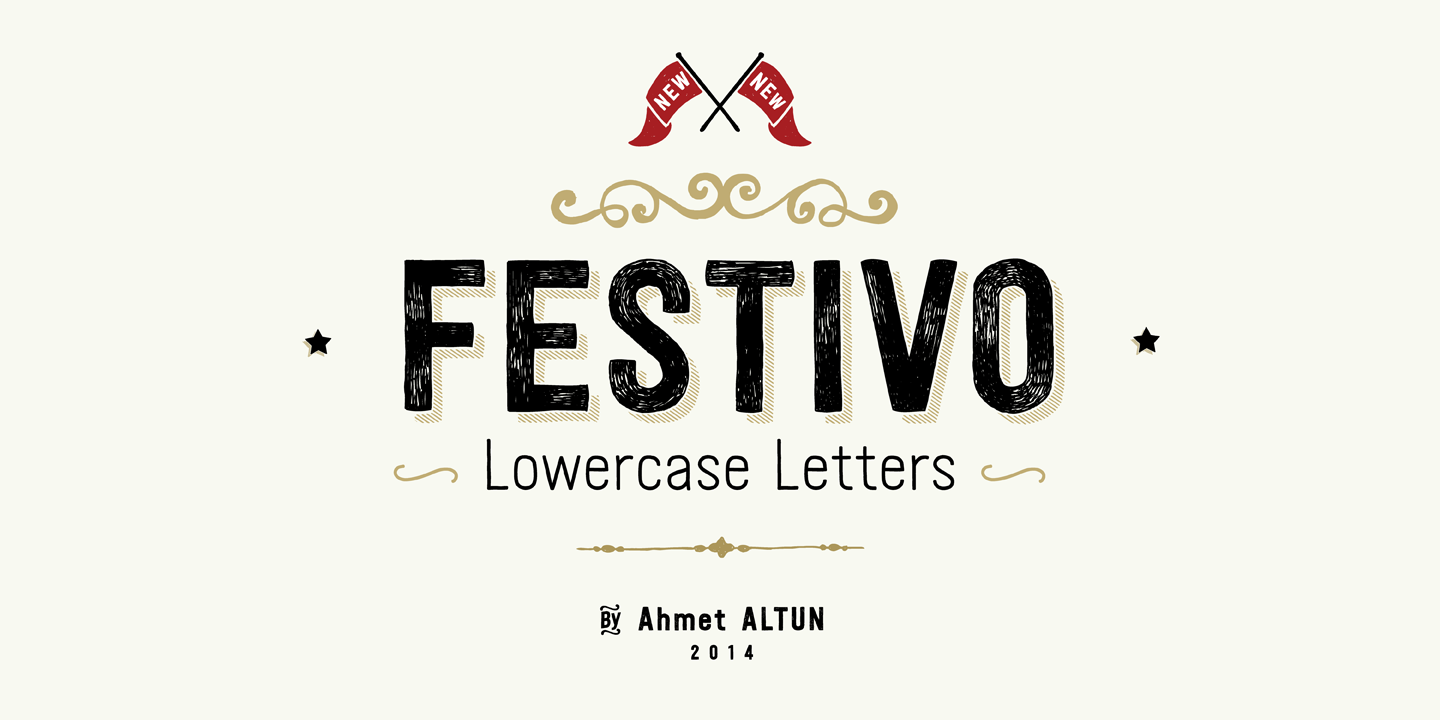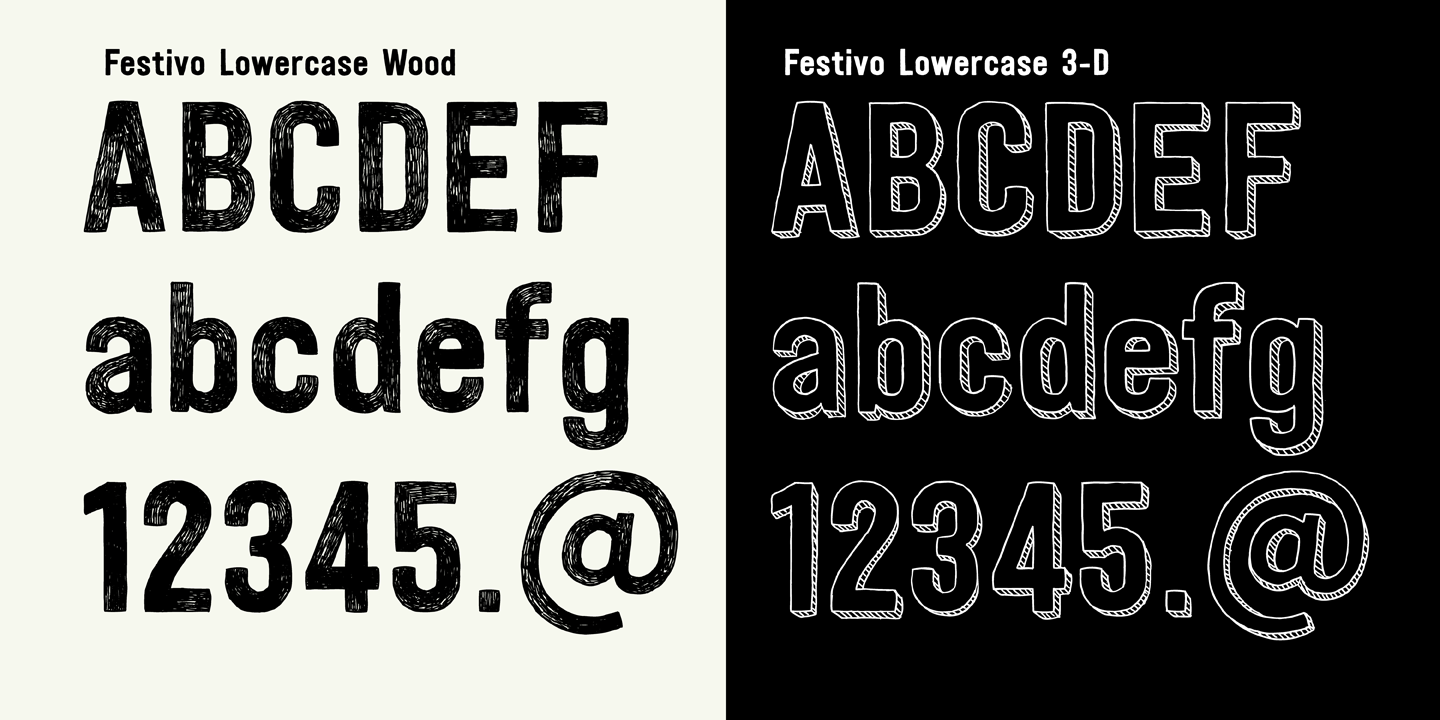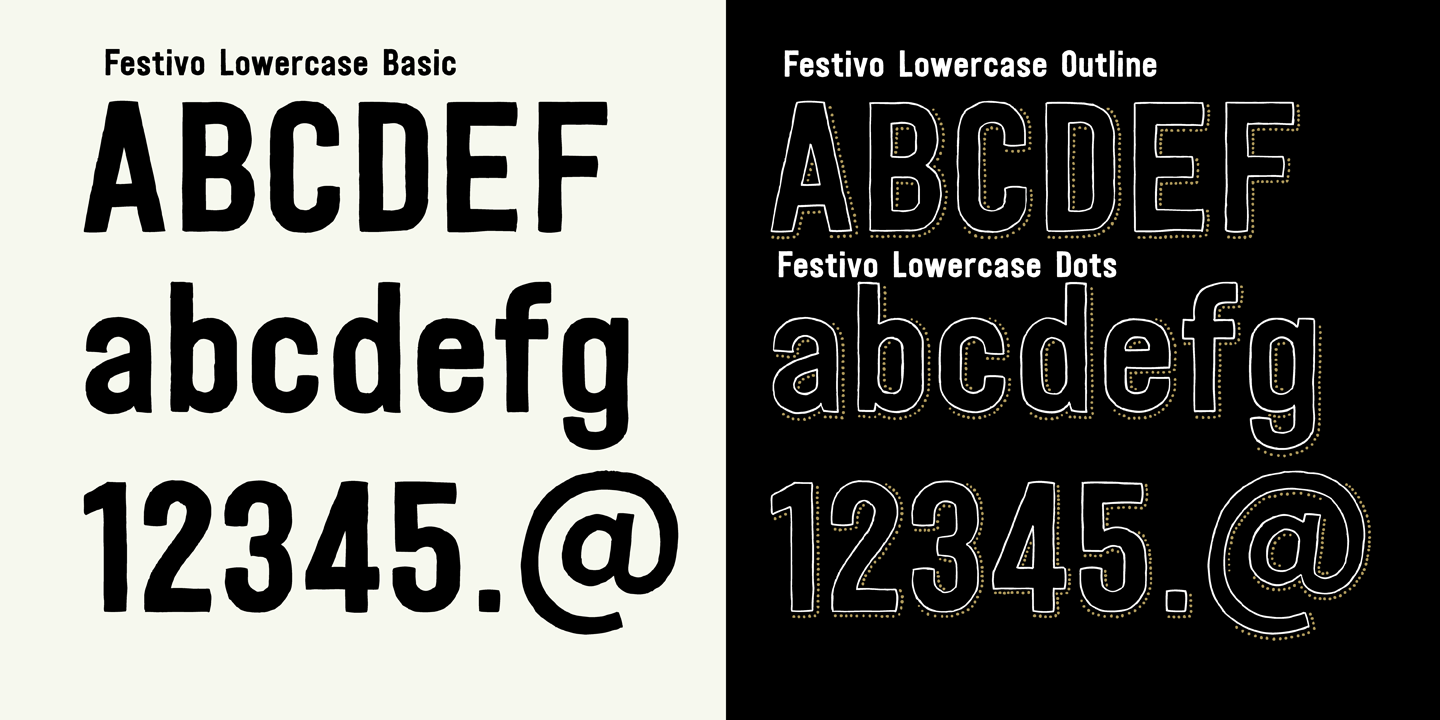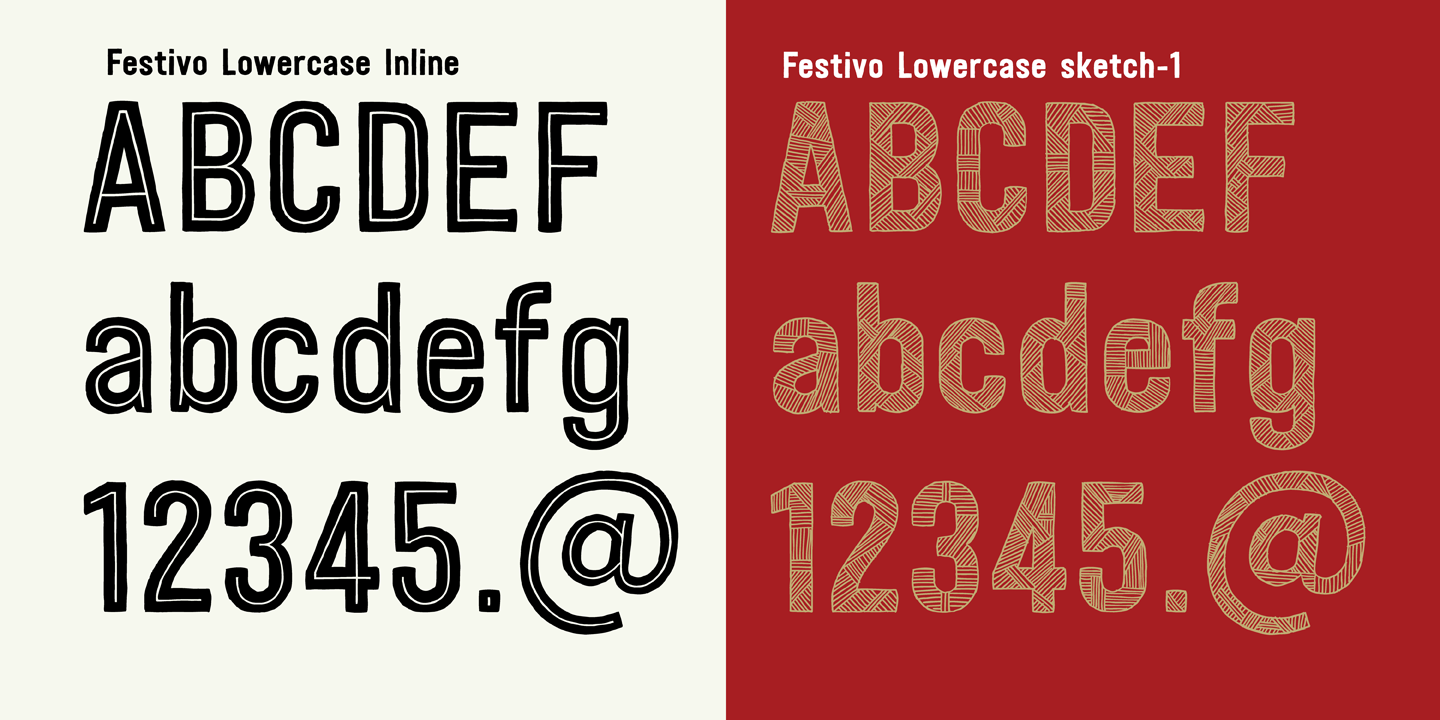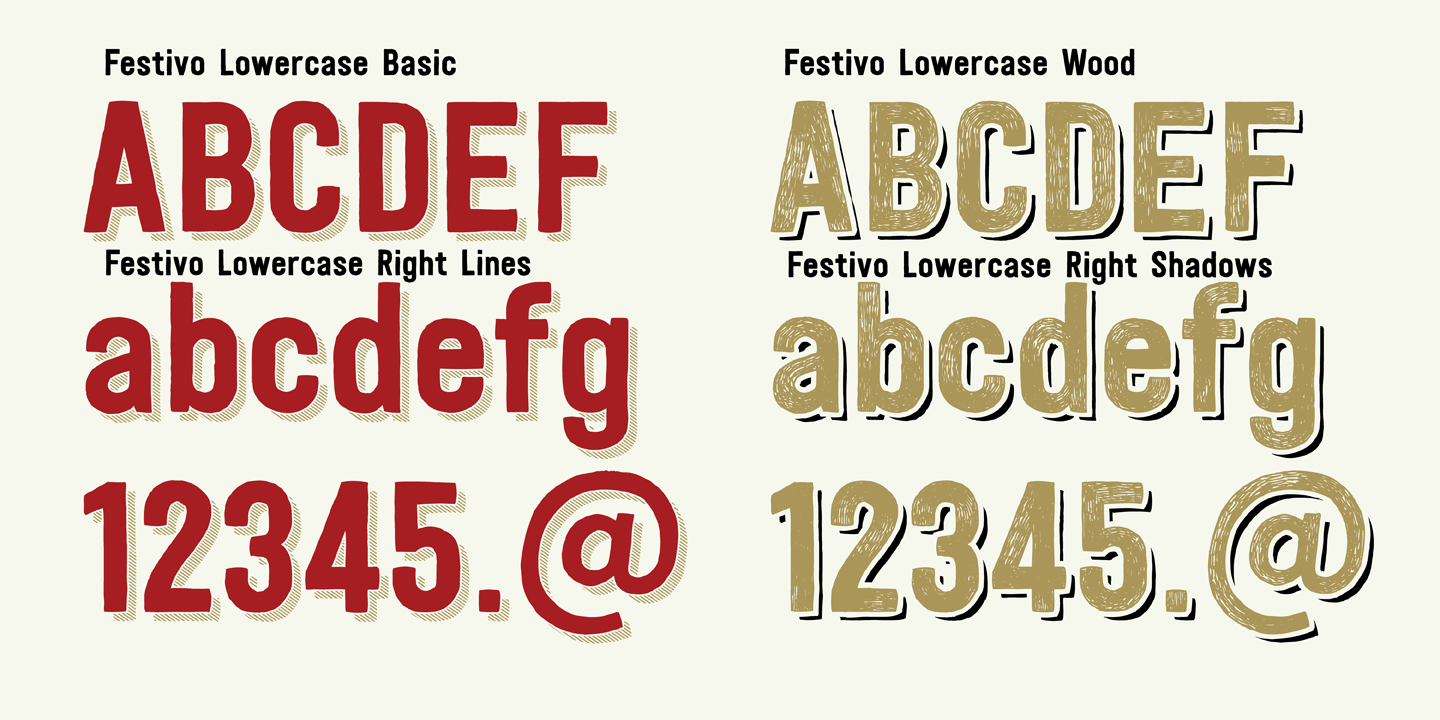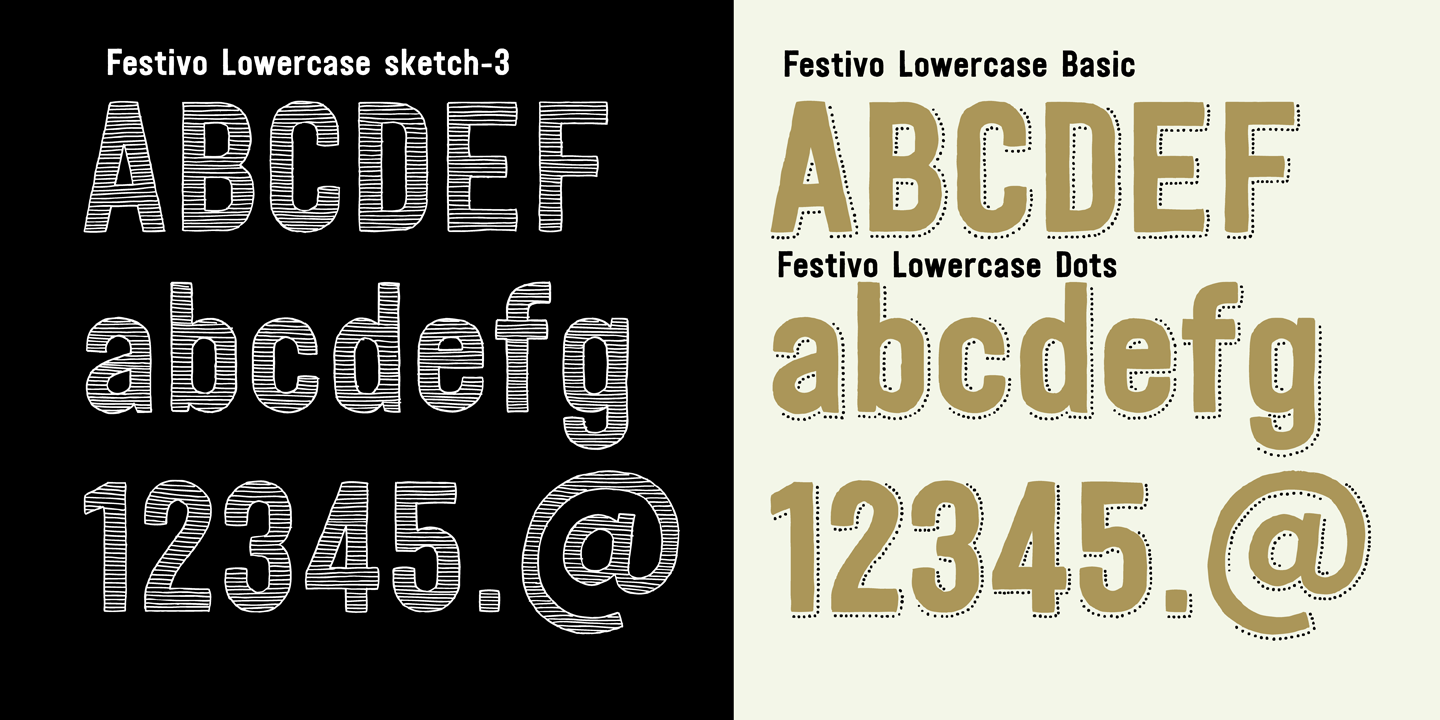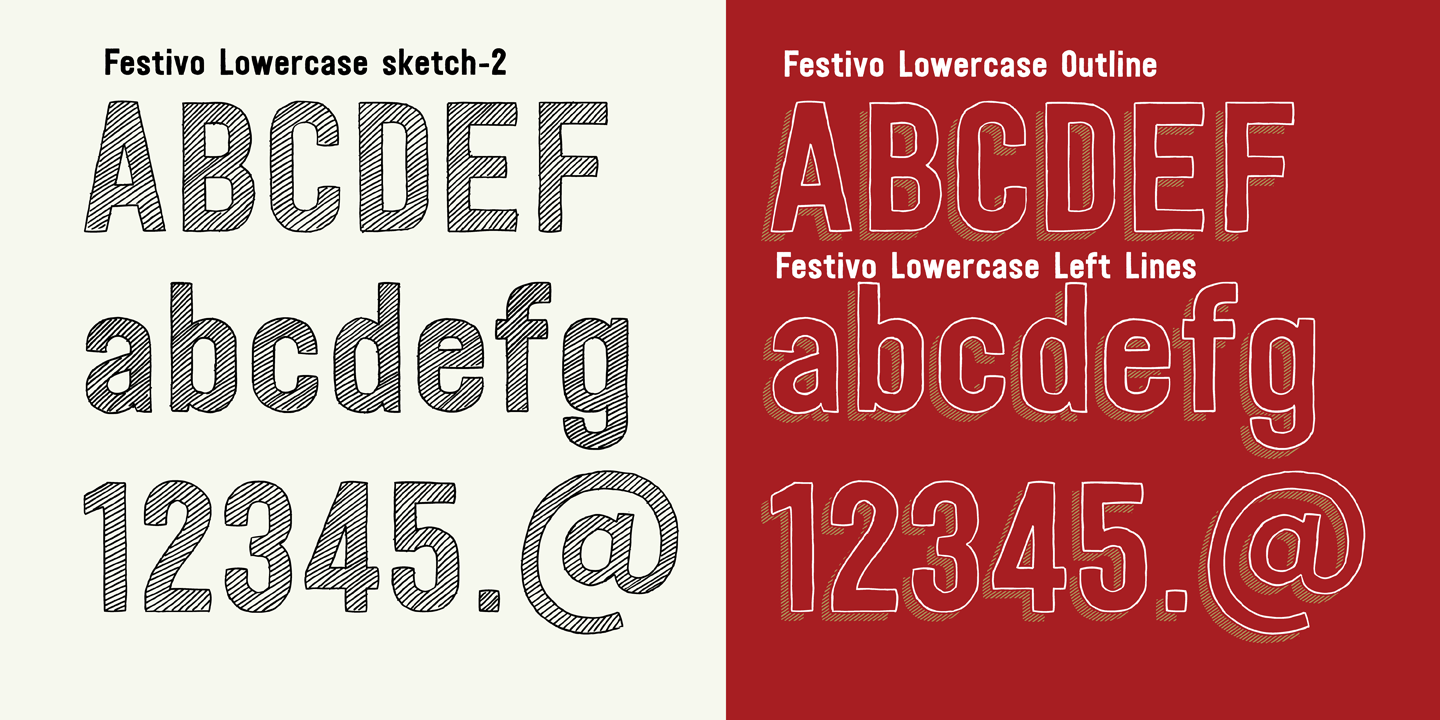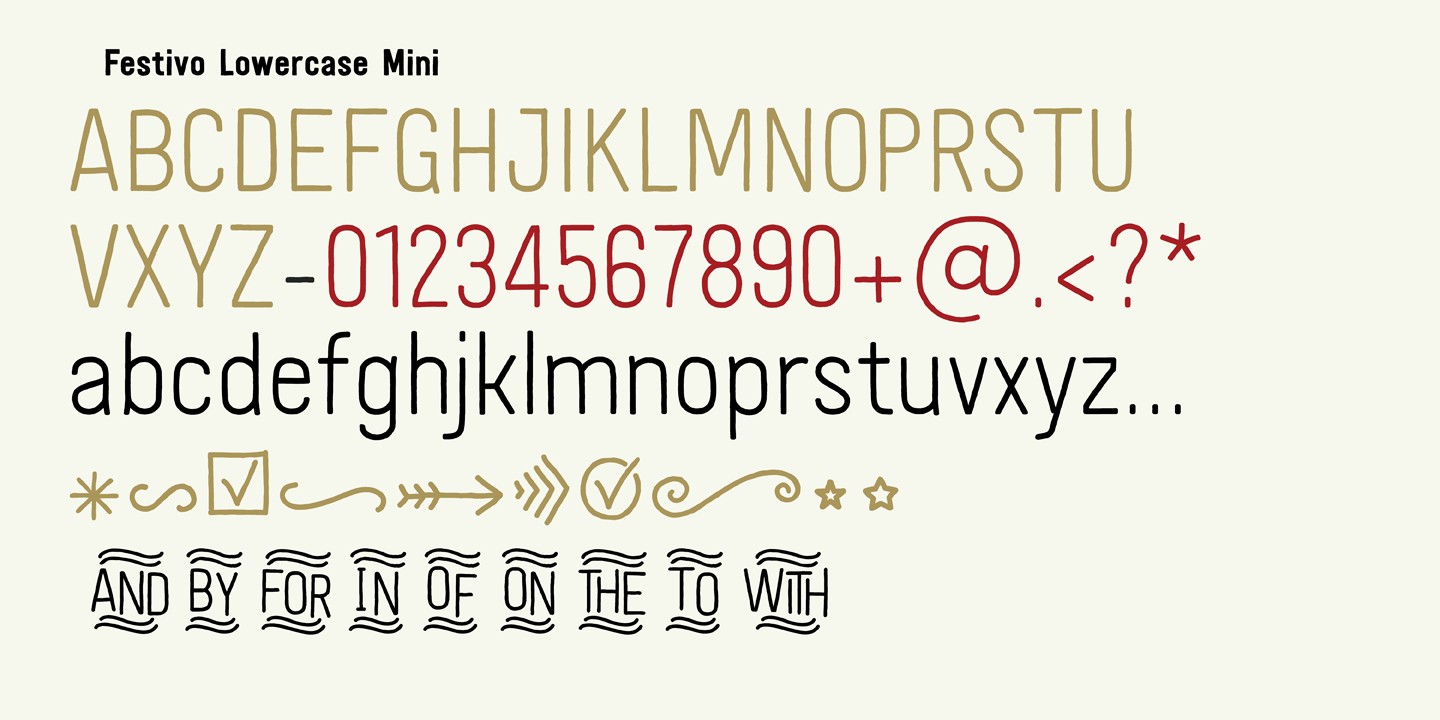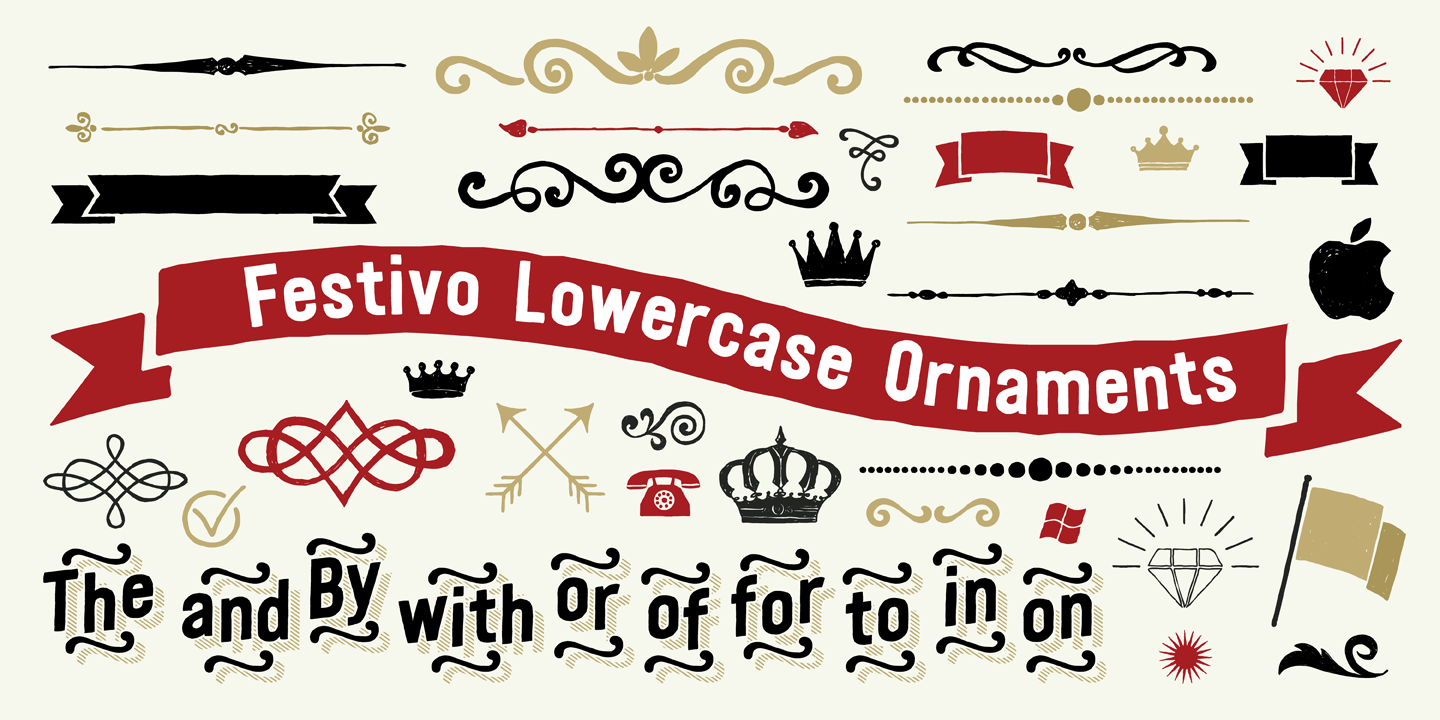
Festivo LC Family (21 fonts)
From Ahmet Altun
Festivo LC offers-up countless creative design possibilities for logos, posters, advertising, magazines, packaging, book titles, display, signage, and t-shirts, just to name a few.
Lastly, we need to mention that the kerning and the metrics of Festivo LC Fonts are NOT the same as the Festivo (all caps) Letters' kernings and metrics.
About Ahmet Altun
“I have been interested in type since my childhood,” says Turkey-based designer, Ahmet Altun. “So, during the new generation of the symbian phones, I got started writing software for the phones’ fonts and themes as a hobby. After that, I began to work on only font design professionally.”